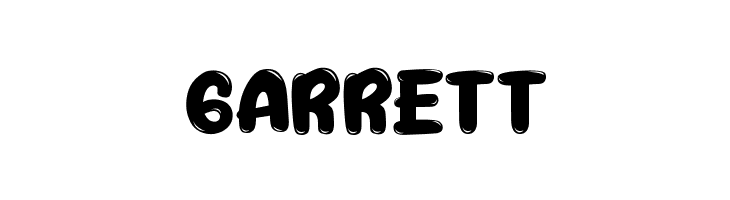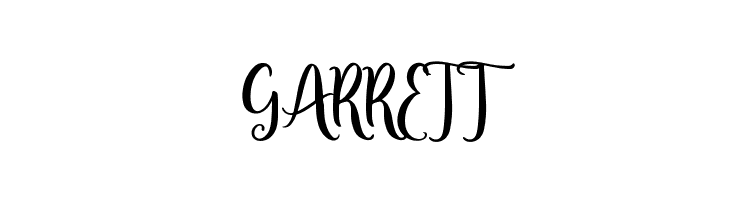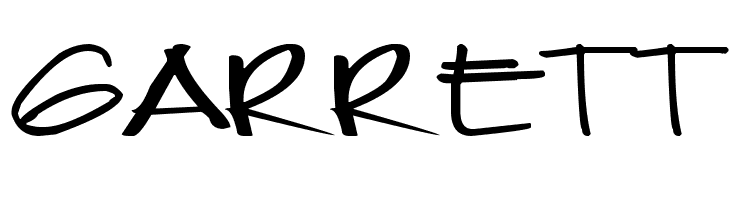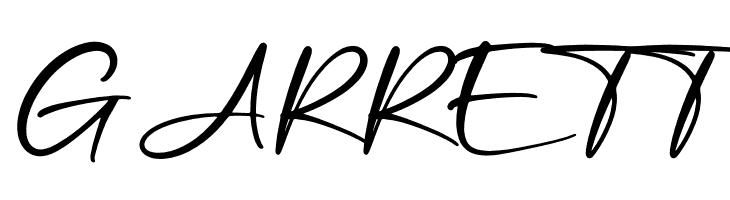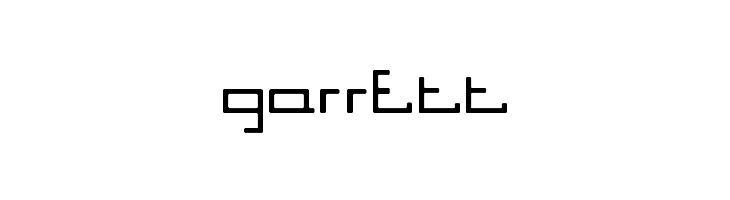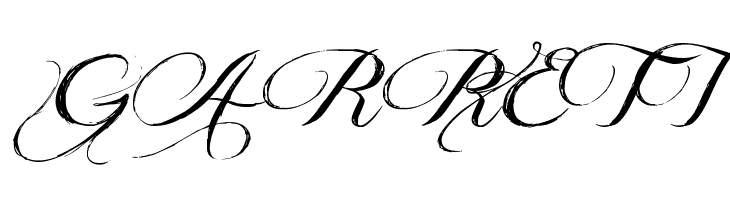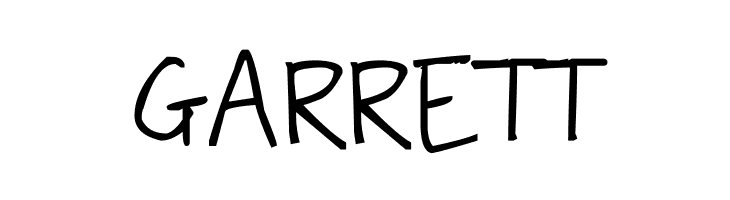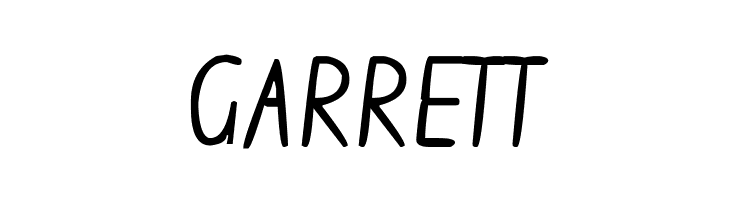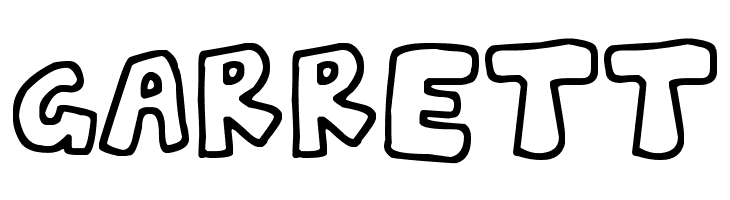
• Jelistha
A lively, cursive font with fluid, connected characters and a handwritten feel.
• Jelly Wobblers
A playful, hand-drawn font with bold, rounded characters and a whimsical style.
• Jellybost
A playful, bold font with rounded, bubbly characters ideal for creative projects.
• Jellyka Delicious Cake
A whimsical, elegant cursive script with ornate flourishes.
• Jenn Bee
• Jerome
A bold, narrow serif font with a strong, authoritative presence.
• Jigga jigga
A modern, geometric font with a futuristic, tech-inspired design.
• Jimmy Flashcard
A playful, handwritten font with a casual and approachable style.
• joeytisoy
• Jolystmas Demo
An elegant and flowing script font with decorative flourishes.